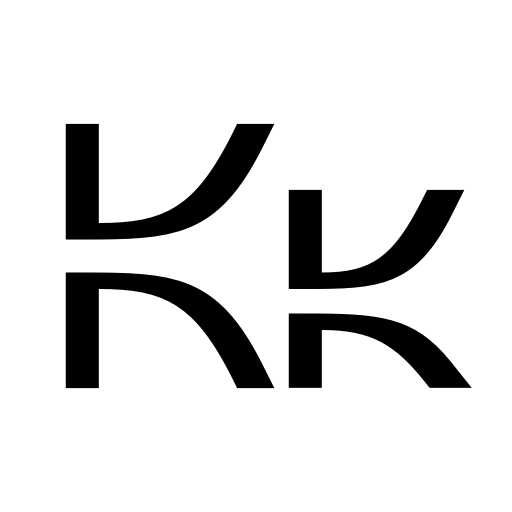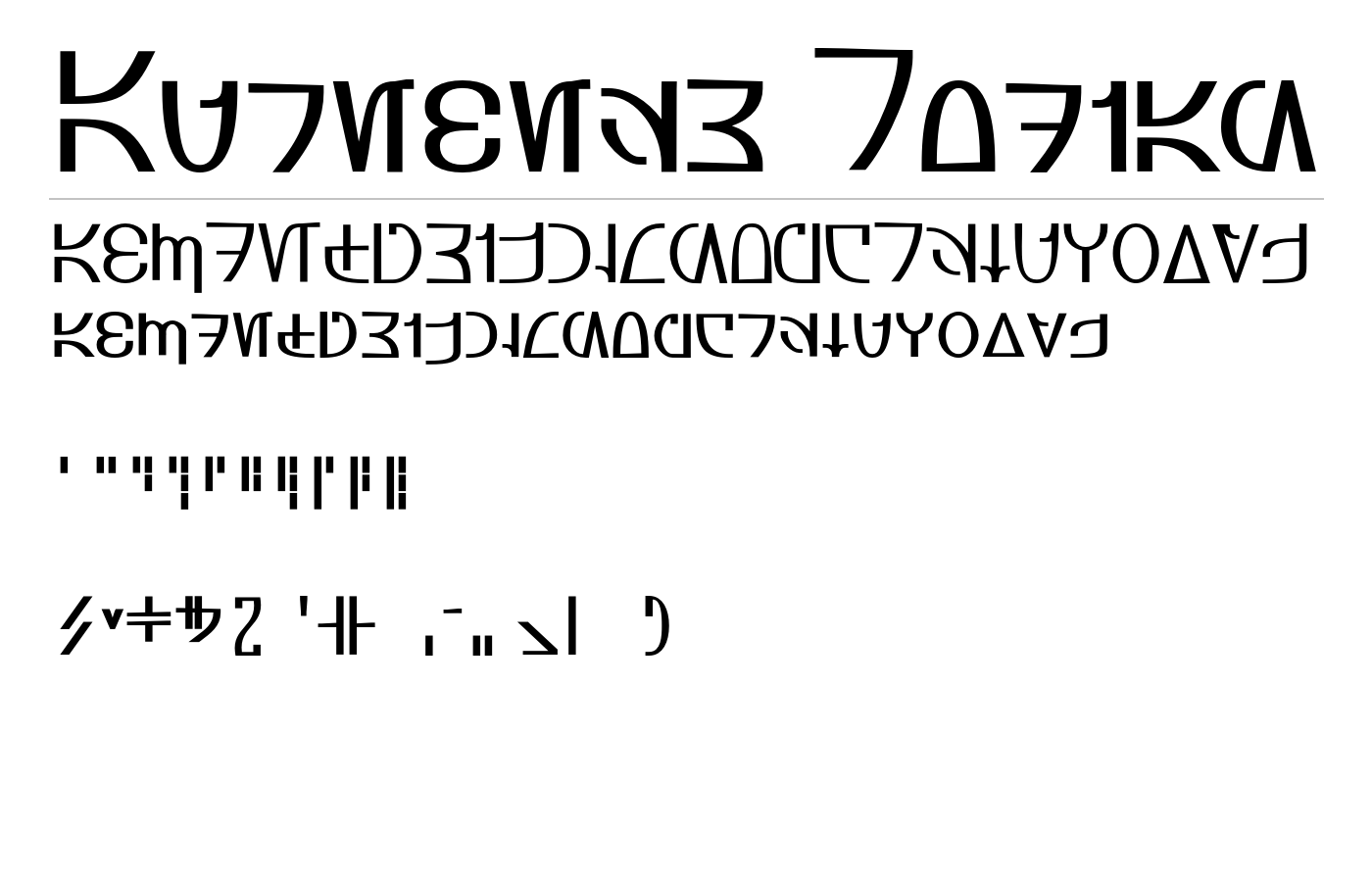
Aurebesh_Rodian is a futuristic, geometric sans serif font with a distinct sci-fi aesthetic, characterized by its angular, stylized letterforms and consistent stroke weight. Its unique shapes and sharp edges give it a modern, alien-tech vibe, making it ideal for designs that seek a space-age or otherworldly atmosphere, such as sci-fi branding, video game interfaces, or themed posters. This font excels in display use where its striking, unconventional style can make a bold, memorable statement.
Aurebesh_Rodian Font